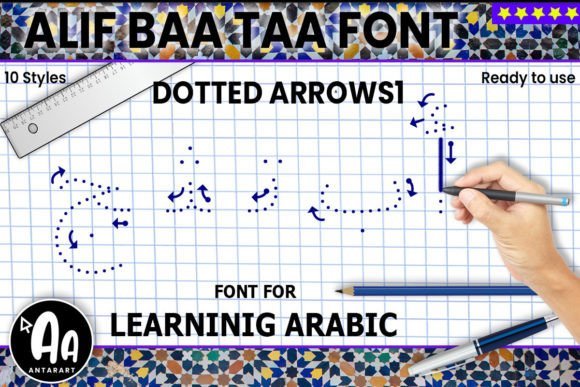
The Magic of Arabic Script: Unlocking the Secrets with Alif Baa Taa Dotted Arrows One Font
Imagine strolling through the bustling souks of Morocco, surrounded by the vibrant sounds and smells of the ancient city. As you wander, you notice the intricate calligraphy adorning the walls, a testament to the rich history and beauty of the Arabic language. Suddenly, you’re inspired to create your own Arabic masterpiece, but where do you start?
That’s where Alif Baa Taa Dotted Arrows One Font comes in – a unique, handwritten font designed to help teachers, learners, and designers alike create engaging Arabic content. With this font, you can craft thousands of Arabic worksheets using any software, making it an invaluable resource for language enthusiasts. For designers, it offers a creative outlet to explore the beauty of Arabic script, while for learners, it provides a fun and interactive way to practice their skills.
Alif Baa Taa Dotted Arrows One Font Key Features
- Font Family: Alif Baa Taa Dotted Arrows One Font is a unique Arabic font designed for reading and writing in Arabic language.
- Character Set: The font includes a comprehensive set of Arabic characters, including letters, diacritical marks, and other required symbols.
- Unique Characteristics: The font features distinctive dotted arrows above and below the letters, adding a unique aesthetic touch to Arabic text.
Designer Review: Alif Baa Taa Dotted Arrows One Font
As a designer, I’ve had the chance to experiment with the Alif Baa Taa Dotted Arrows One Font, and I have to say, it’s been a mixed bag. ✨ On the one hand, the font has a unique and quirky charm that can add a lot of character to designs. The dotted arrows and other decorative elements add a playful touch that can be really effective in certain contexts.
- Unique and quirky design that can add character to designs
- Playful and decorative elements can be effective in certain contexts
- Clean and legible font, even at smaller sizes
However, ⚠️ there are also some limitations to consider. The font can feel a bit over-the-top or gimmicky if used too extensively, and the decorative elements can be distracting if not used thoughtfully. Additionally, the font’s unique design can make it more difficult to read in certain situations, such as in small text or at high speeds.
Overall, I think the Alif Baa Taa Dotted Arrows One Font is a solid choice for designers who want to add some personality to their work. It’s perfect for projects that require a playful or whimsical touch, but may not be the best choice for more serious or formal designs.